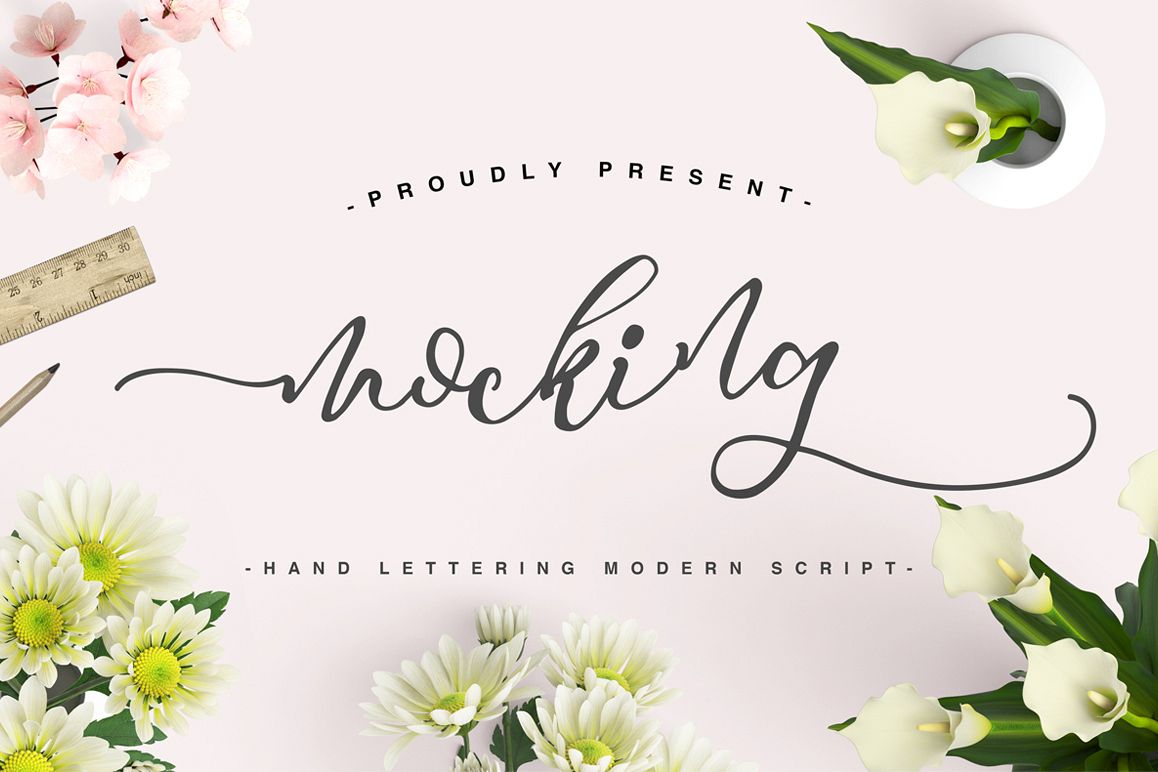
Mocking
Mocking-Regular
Introduce Mocking Script. an elegant, flirty, calligraphy-style script with decorative end characters and a bounching baseline! So pretty on branding materials, blog headers, business cards, quotes and more. This font is suitable for making greeting cards, wedding invitations, branding and logo. This font is also suitable for something related to something romantic and girly.